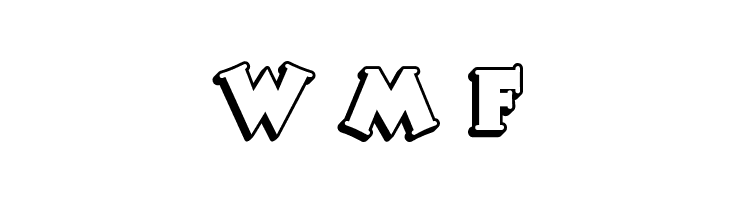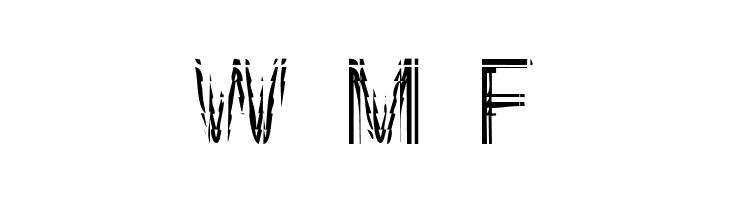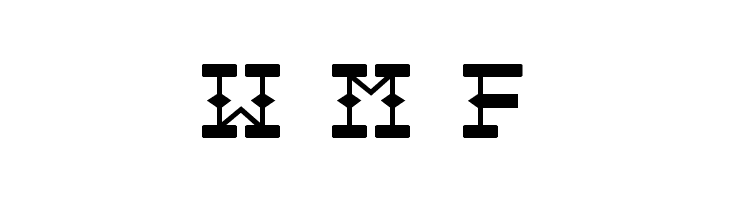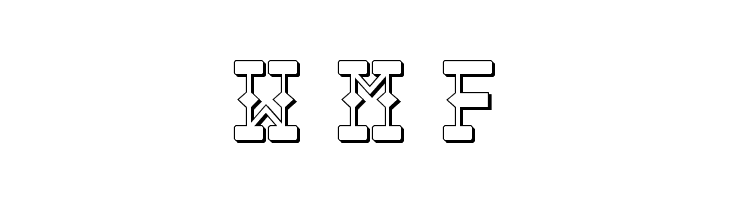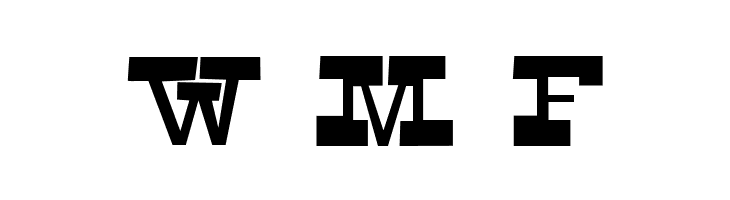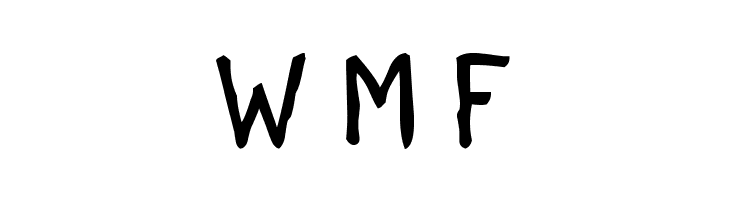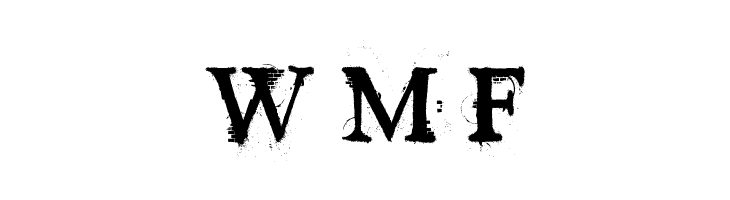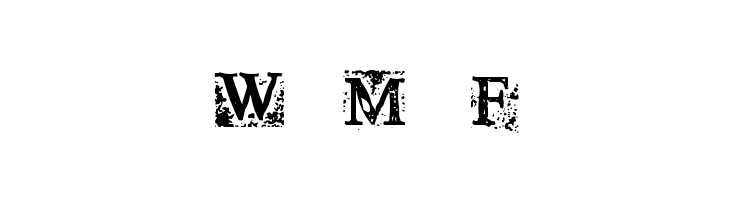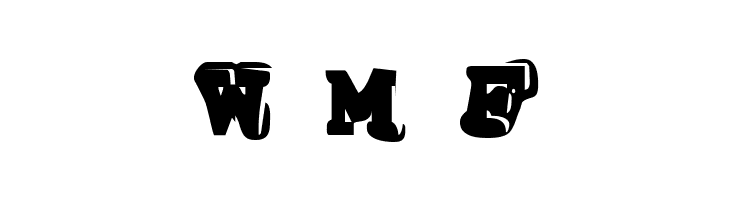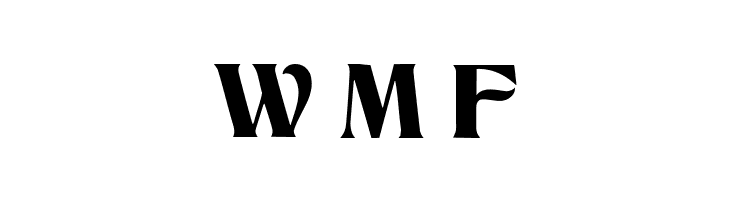
A bold, distressed serif font with a grunge aesthetic.
A decorative font with intricate cut-out patterns and a bold, artistic style.
A bold, decorative serif font with ornate detailing and vintage flair.
A playful, bold outline font with rounded edges and a cartoonish style.
A bold, vintage-inspired serif font with high contrast and dramatic serifs.
A bold, distressed font with a hand-drawn, chalk-like texture.
A playful, irregular font with a hand-drawn, artistic style.
A playful, hand-drawn uppercase font with a whimsical style.
A bold slab serif font with strong, block-like serifs and a robust presence.
A bold, slab serif font with a vintage, western aesthetic.
A bold, shadowed outline font with a vintage, western-inspired style.
A playful, bold font with rounded, cartoon-like characters and a hand-drawn feel.
A bold, italicized, and condensed font with a playful, cartoonish style.
A playful, bold font with rounded, cartoon-like characters.
A playful, bold, and italicized font with a cartoonish style.
A bold, playful italic font with rounded characters and a dynamic style.
A playful, bold typeface with rounded, cartoon-like characters.
A playful, bold font with rounded, cartoonish letterforms.
A playful, bold, and shadowed font with a three-dimensional, cartoonish style.
A bold, cartoonish font with rounded edges and a shadow effect.
A bold, cartoonish font with a 3D effect and playful style.
A playful, cartoon-like font with exaggerated, dynamic characters.